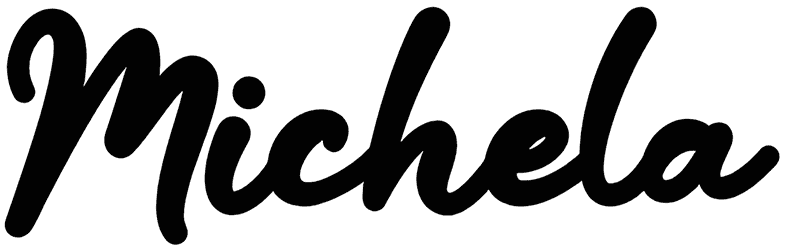
Michela Font
With a modern handwritten font like this offer, your design will have an engaging and cool mood that is going to be interesting for many people. The Michela font has realistic and cursive letters that can bold your words. Let’s add this script font to your next creative project and see how unique it will be.